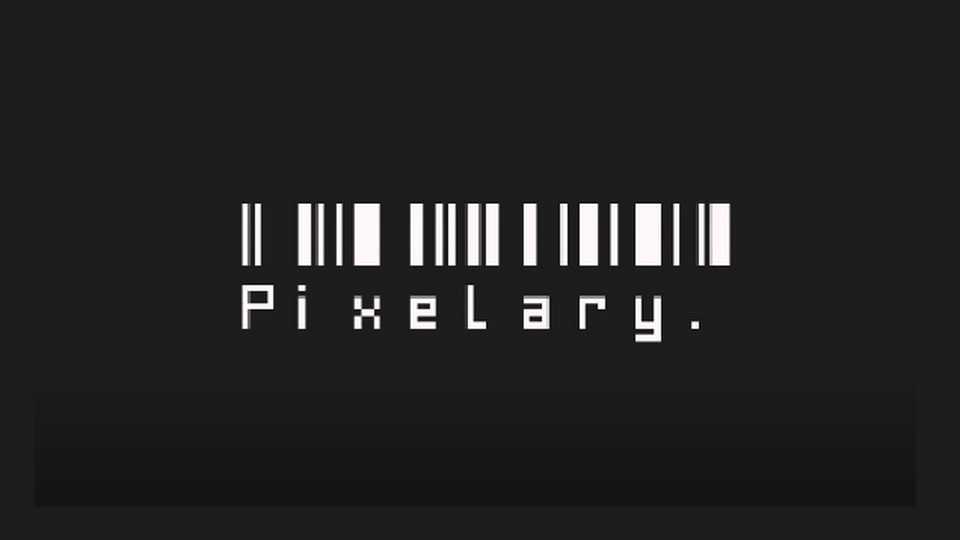
Download Pixelary font, a pixel-perfect monospace font, with binary strips. Pixelary font works best for headlines, posters and album artworks.
Designer: Patch